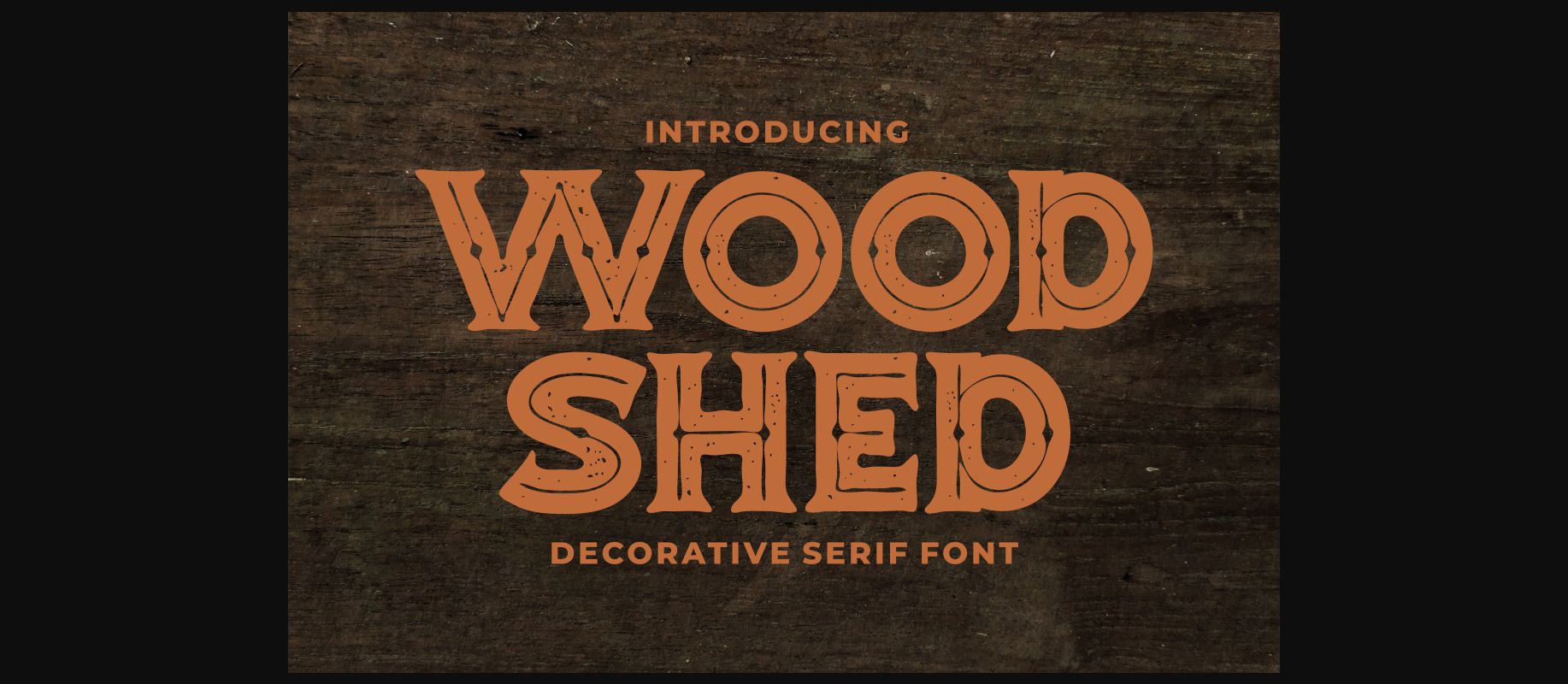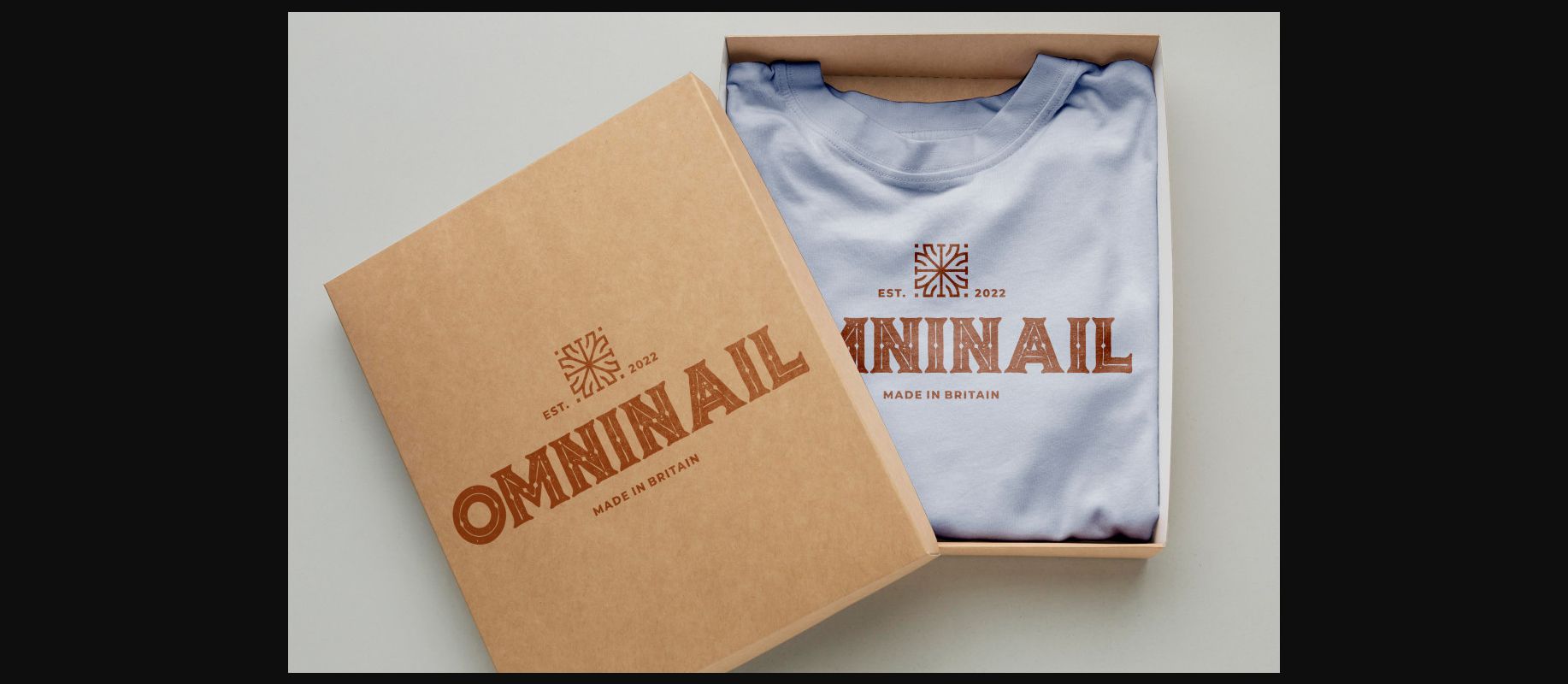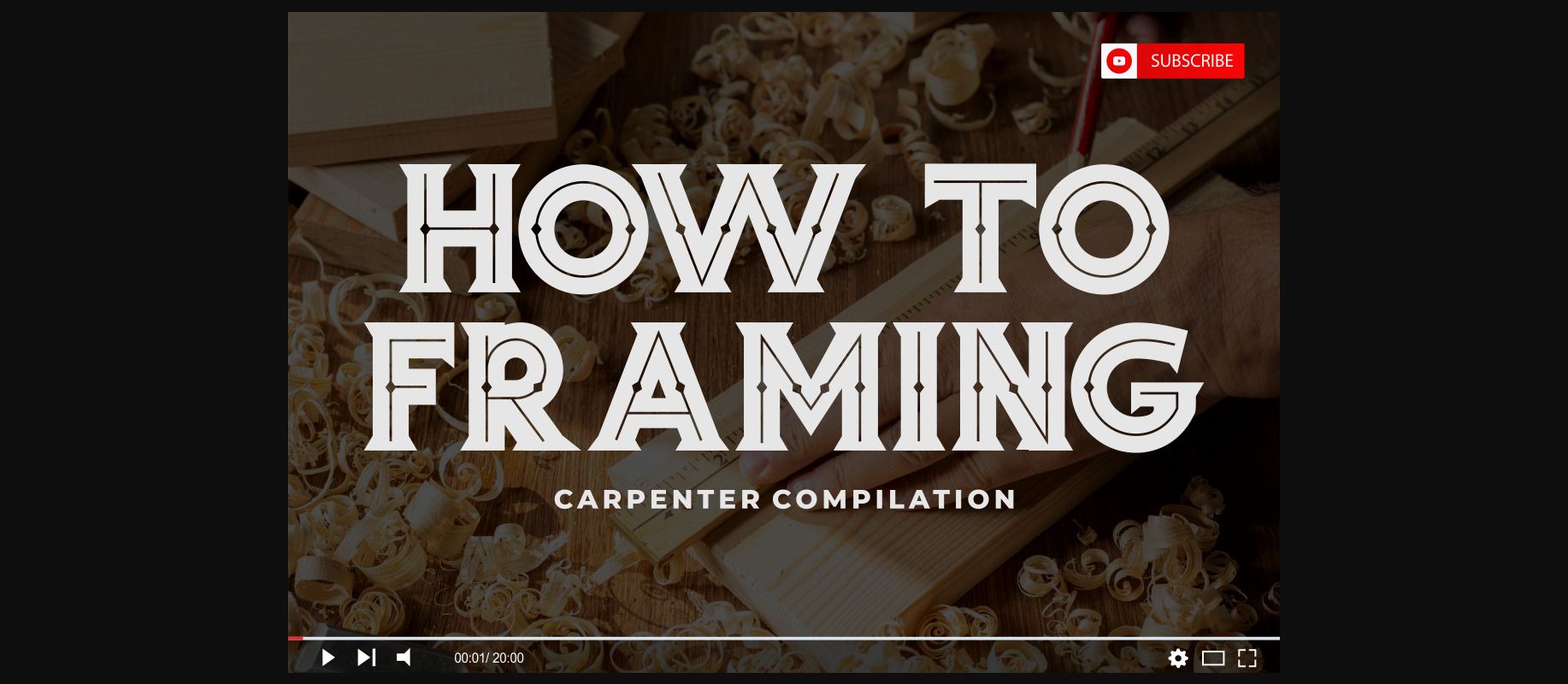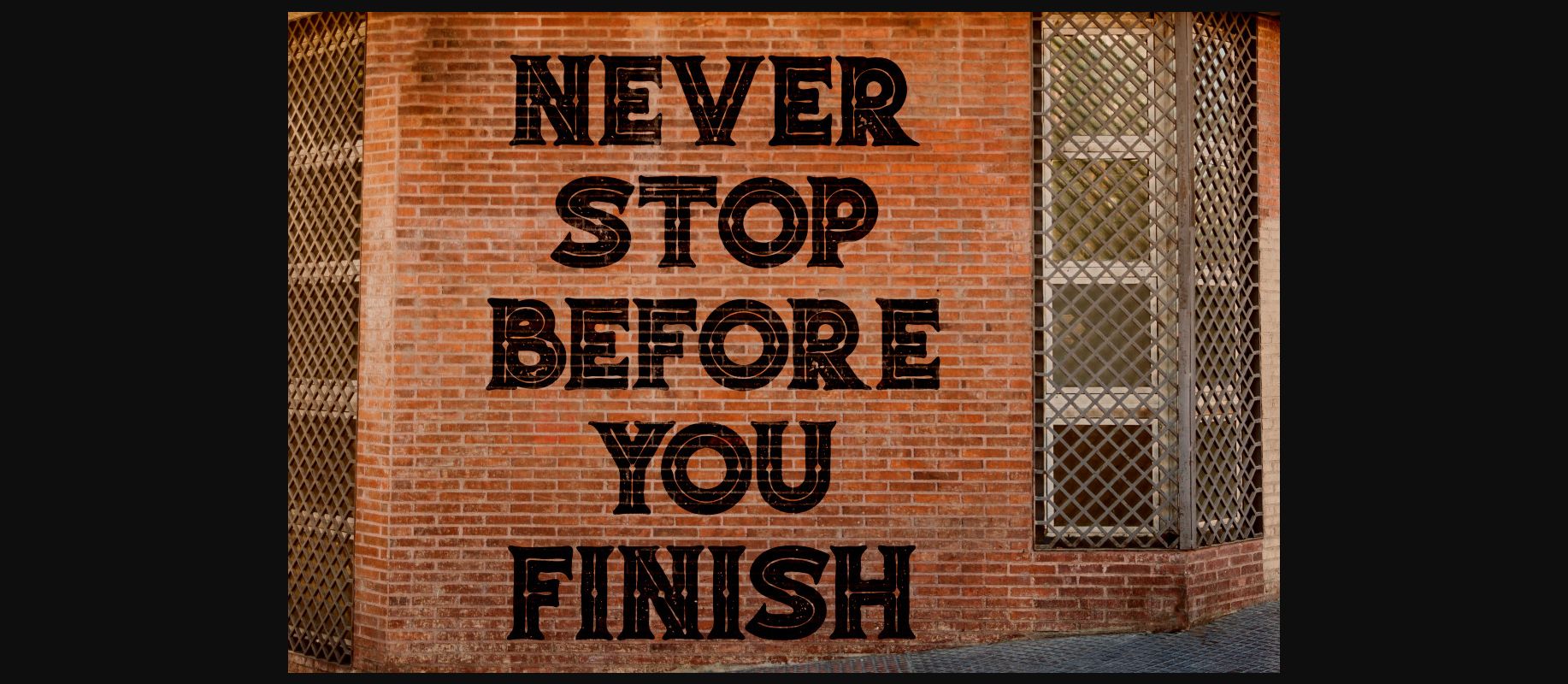
About Woodshed Font
Woodshed is a cool and unique decorative font. If you’re looking for a vintage, western accent for your projects, Woodshed is here to help. This font is PUA encoded which means you can access all the glyphs and ligatures with ease!